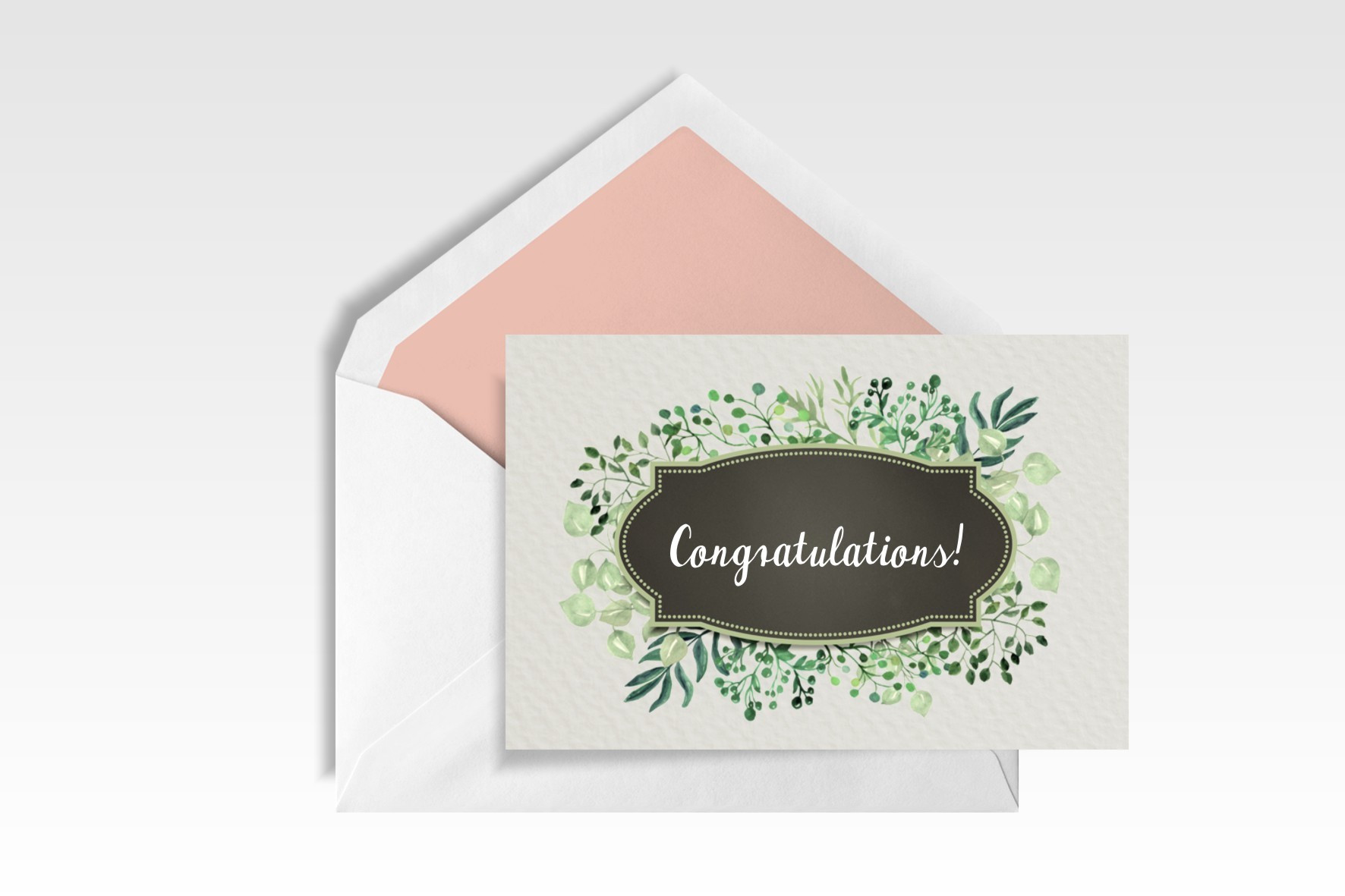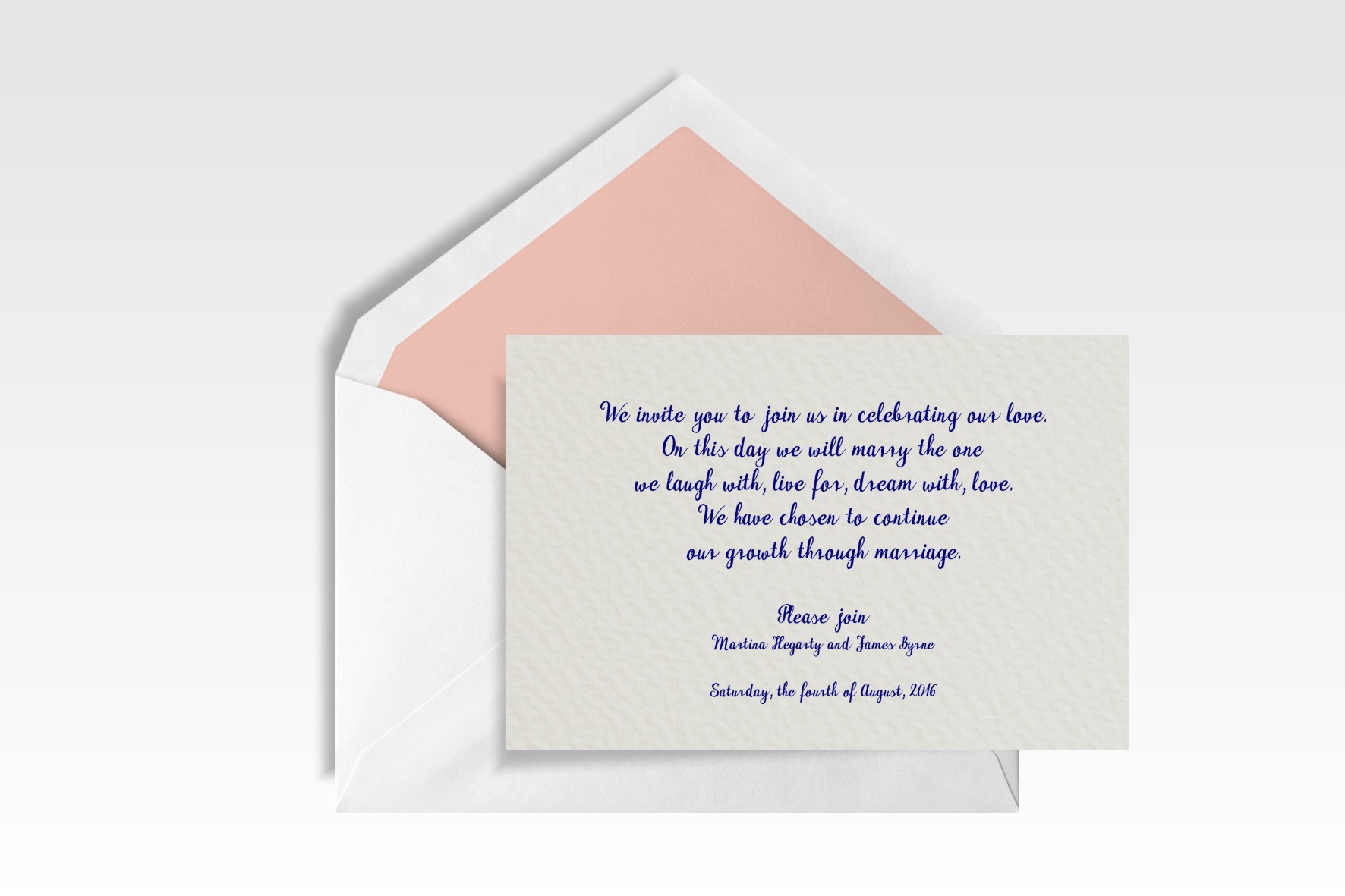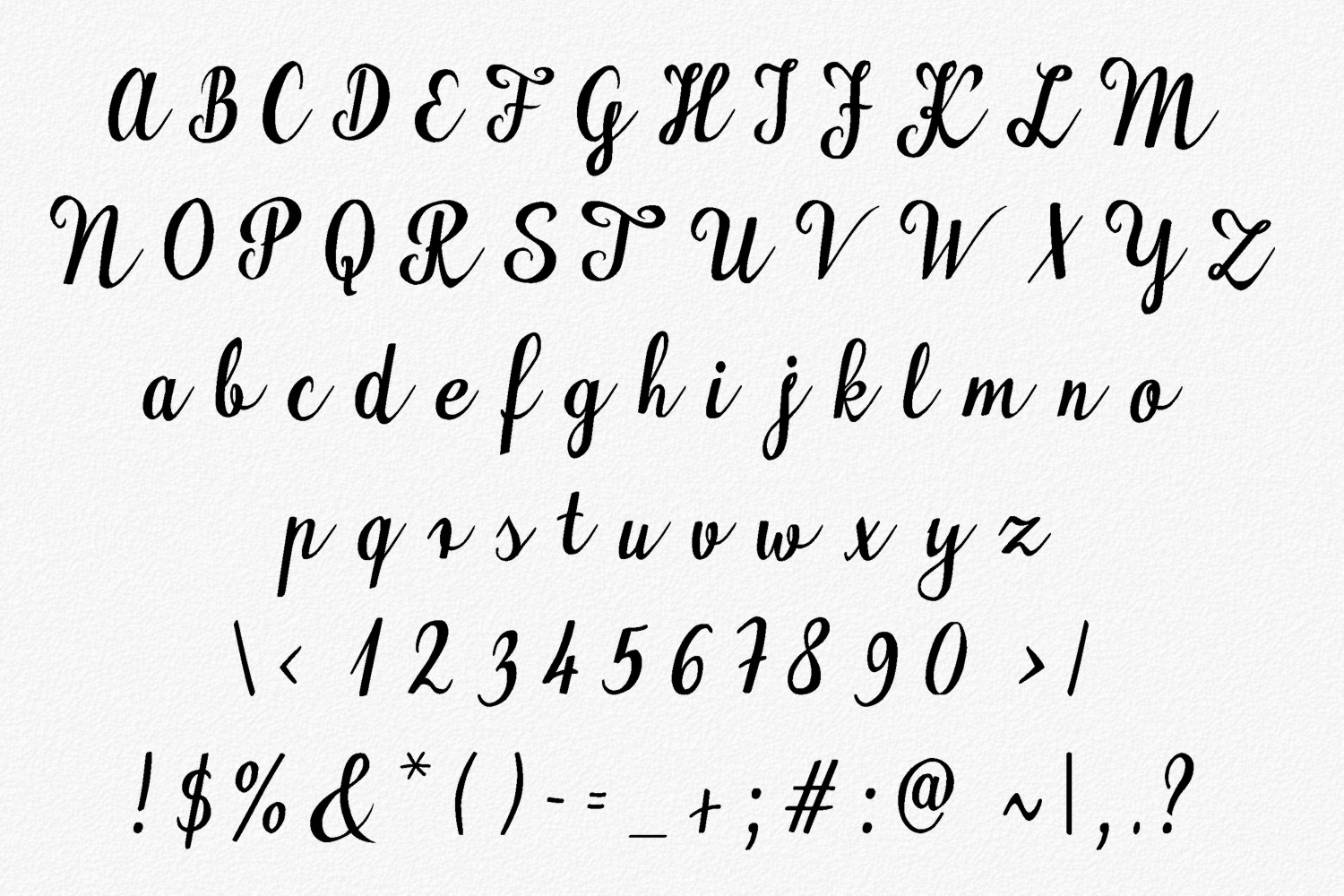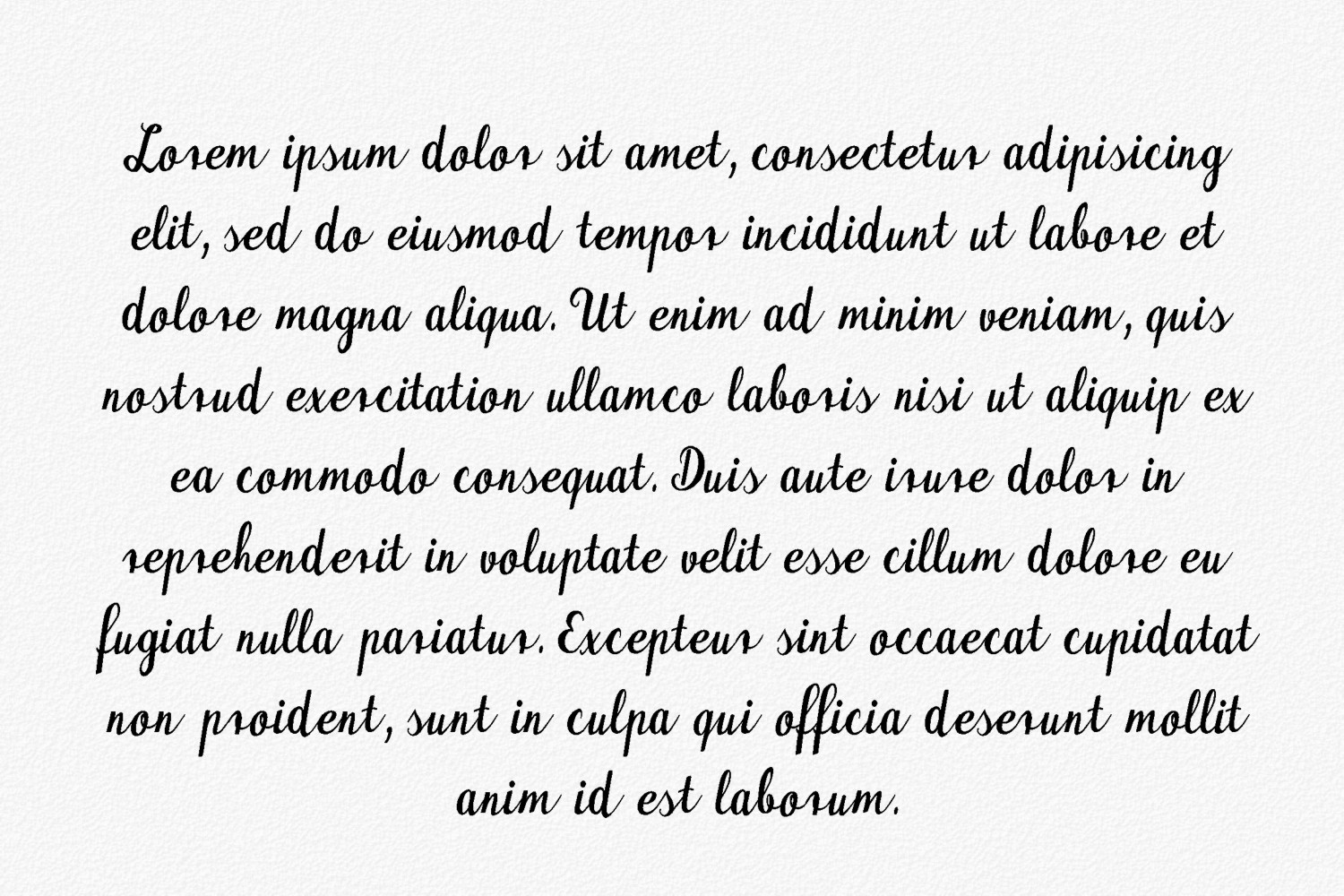
Introduction to Maudlyn Font
Maudlyn is a stunning handwritten typeface, both sweet and legible making it suitable to a wide range of designs and uses.
This font is romantic, and can amplify any project .
Key Features of Maudlyn Font
Why Choose Maudlyn Font?